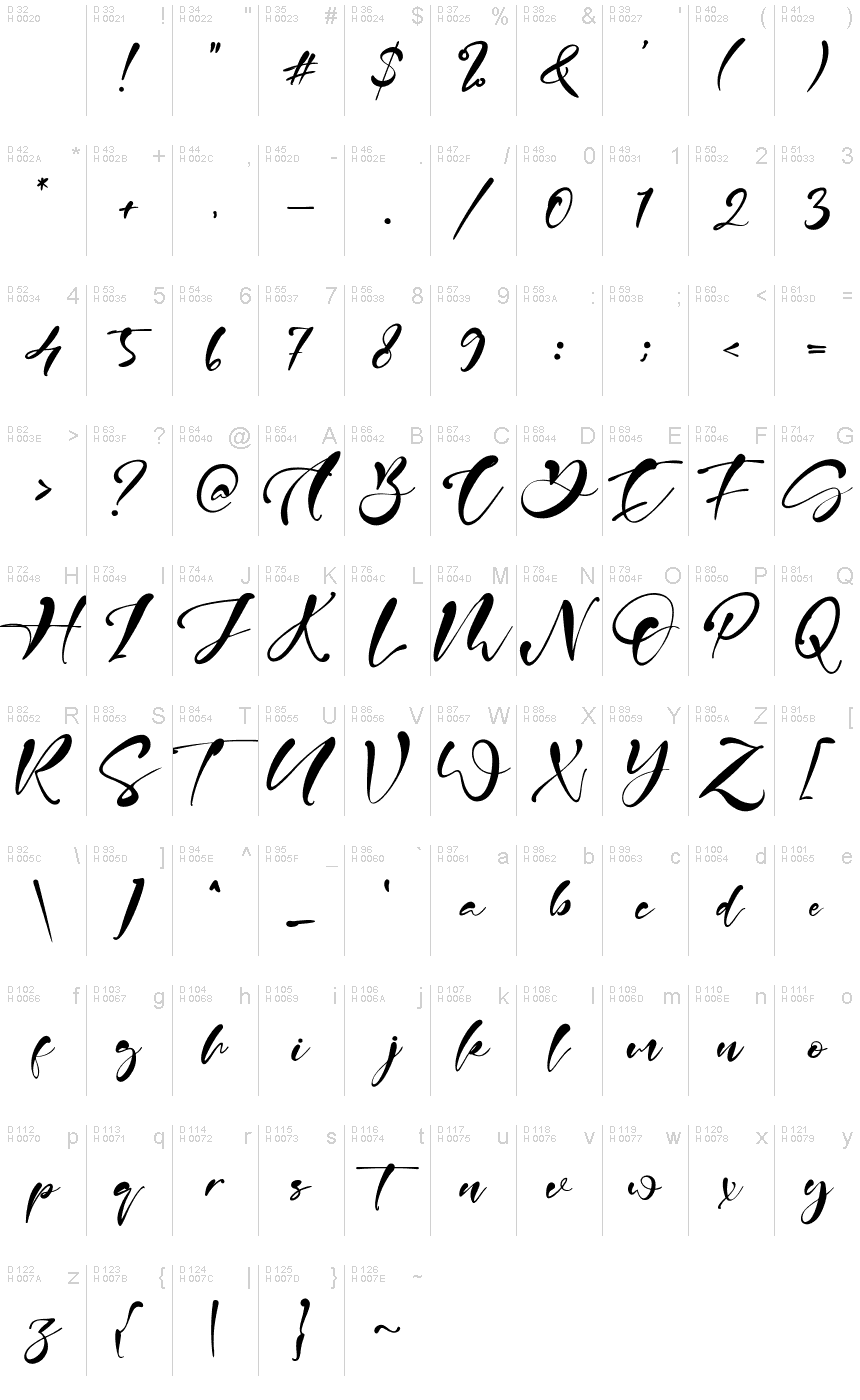
Anasteziya
Anasteziya, crafted by StringLabs, is a stunning modern calligraphy font that's perfect for projects requiring a touch of elegance and sophistication. With its semi-light weight, this font provides an airy feel that's ideal for wedding invitations, greeting cards, and feminine branding materials. Its graceful curves and flowing lines add a personal touch to any design project. Anasteziya's unique style makes it perfect for fashion blogs or beauty brands looking to stand out. Bring your designs to life with this beautiful semi-light font and leave a lasting impression on your audience.